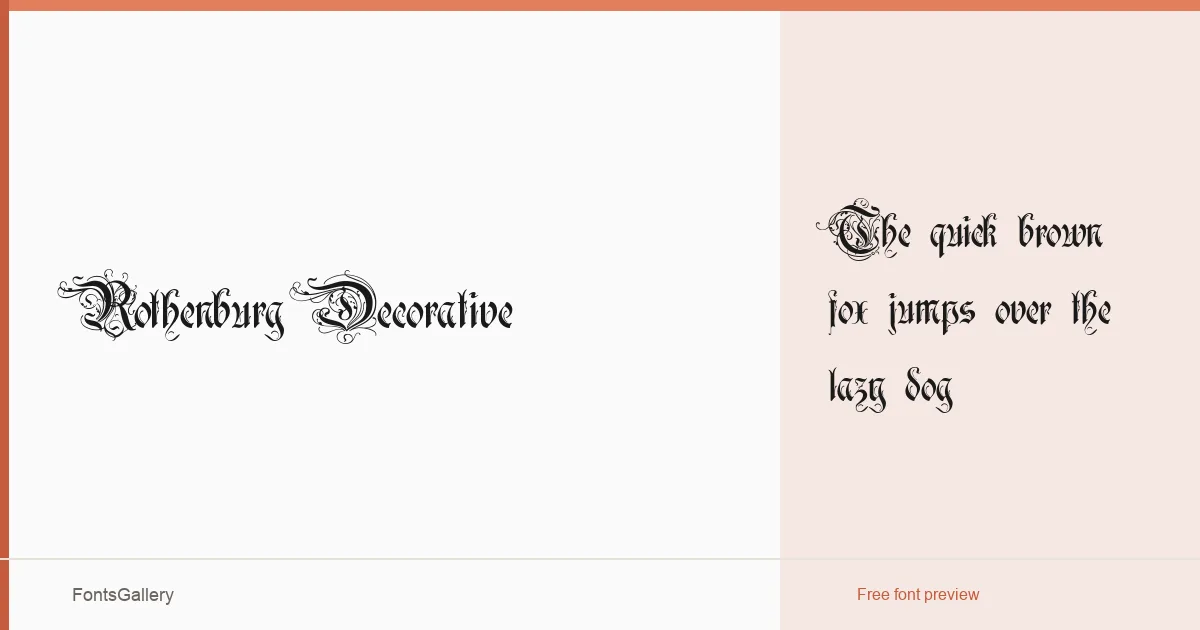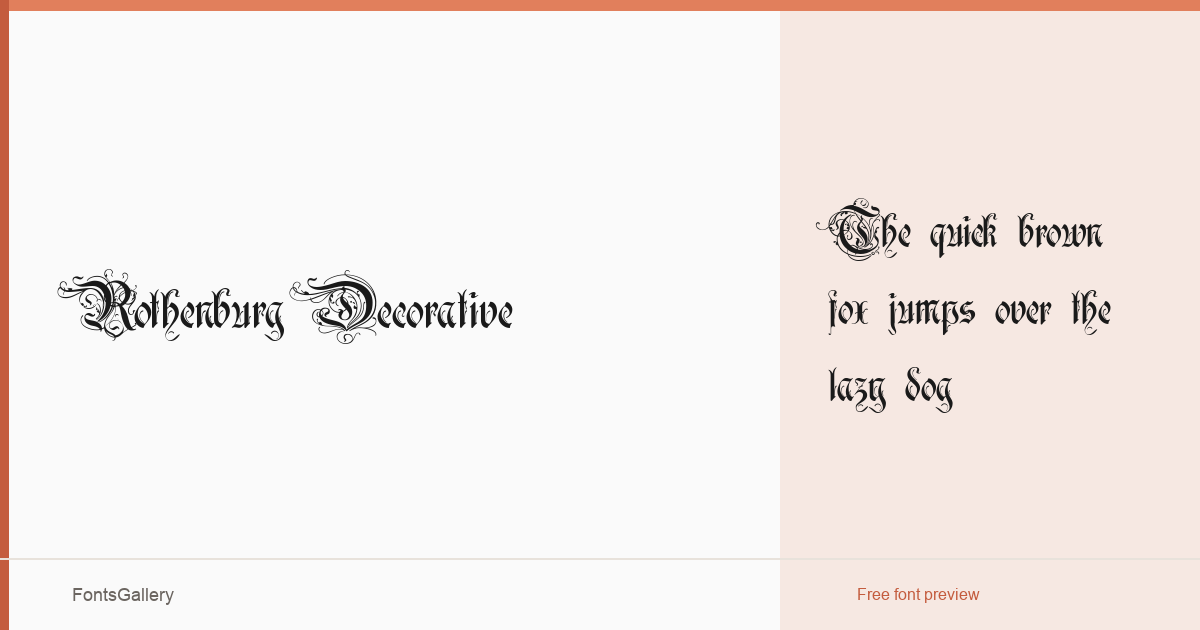
About Rothenburg Decorative Font
Rothenburg Decorative is a striking Blackletter typeface published by Typographer Mediengestaltung, crafted to evoke elegance, vintage charm, and timeless luxury. Its classical character makes it an instantly commanding presence in any design project. This typeface channels the rich heritage of traditional Blackletter scripts while lending itself to sophisticated, contemporary applications.
True to its Blackletter category, Rothenburg Decorative features bold, ornate letterforms defined by dramatic thick-to-thin strokes, sharp angular details, and decorative flourishes that exude a classic and luxurious quality. Each character carries a sense of ceremony and refinement, making the typeface feel both vintage and elevated. The overall aesthetic is one of distinguished grandeur, perfectly suited to designs that demand a sense of heritage and prestige.
Rothenburg Decorative excels in high-impact applications such as logos, posters, wedding stationery, branding materials, and certificates, where its ornate elegance can take center stage. Its decorative nature makes it ideal as a display or headline font wherever a vintage or luxury tone is desired. It pairs beautifully with the clean simplicity of Helvetica or the refined style of Aresink to create a compelling contrast between ornate and modern letterforms.